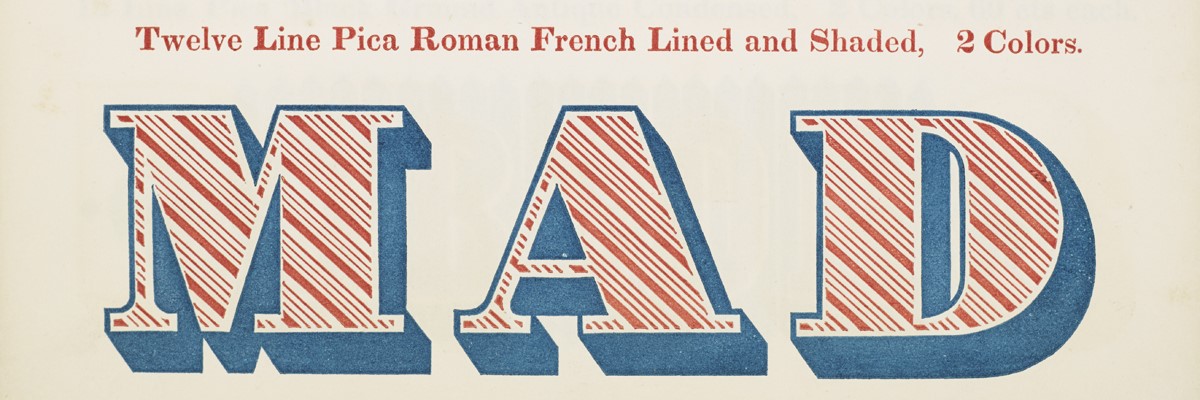
Type specimens are an important resource for both the study of the history of type and the study of type design. Prior to the 21st century they were not widely accessible as with a few exceptions, they were widely scattered among various public, private and university libraries, printing museums, and individual collections. Many specimens exist in only a few copies, even many that were printed in editions consisting of tens of thousands of copies. Multiple copies of specimens often differ in collation and many are incomplete or mutilated. Despite the spate of type specimen facsimiles published in the 1960s and 1970s, the study of type specimens was difficult.
All of this has changed dramatically in the digital era as not only have specimens been digitized, but a rapidly increasing number have been posted online. The great majority of these are freely accessible and many are also downloadable. Thus, type designers, type historians, and other researchers can now easily examine specimens in far away locations; compare multiple copies; and trace type designs from foundry to foundry and country to country.
This talk will outline the different kinds of type specimens that have emerged over five centuries, summarize their features and contents, and then survey the type specimens that have been digitized and uploaded to the Internet. The survey will include assessments of the quality and utility of the various digitizing efforts and display approaches.